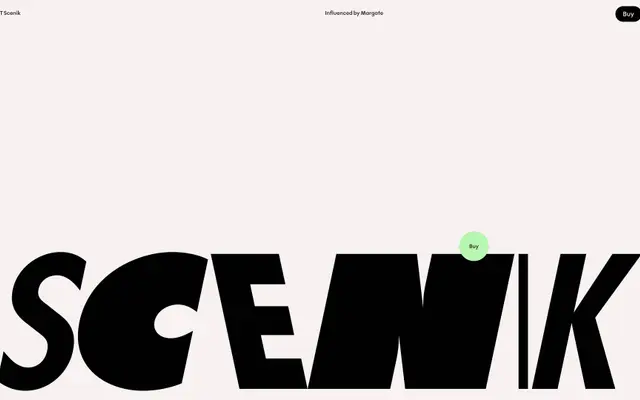
Scenik Mono specimen from Frost
The monospaced cut of the Scenik family, spanning nine weights from Thin to Heavy and aimed at body copy and technical typesetting.
Part of the three-family Scenik system inspired by the modernist typography of Margate, this mono cut is pitched specifically at monospaced applications and smaller body copy. Nine weights are available across the family, with a variable font included when purchasing the full family. OpenType features include stylistic alternates, case-sensitive forms, tabular and proportional figures and fractions, alongside broad Latin Extended language support covering over 100 languages.
Scenik Mono is the monospaced cut of the Scenik family, designed for monospaced applications and body copy, drawing on modernist grotesque influences from Margate's coastal typography heritage.